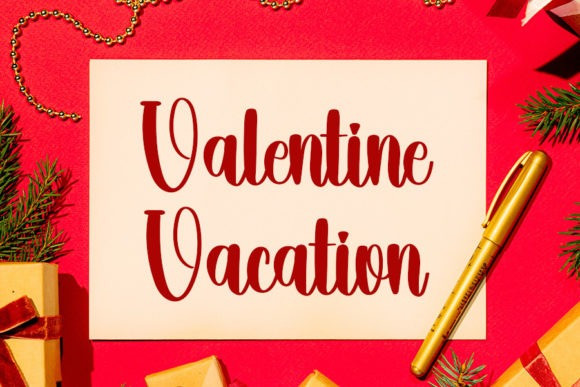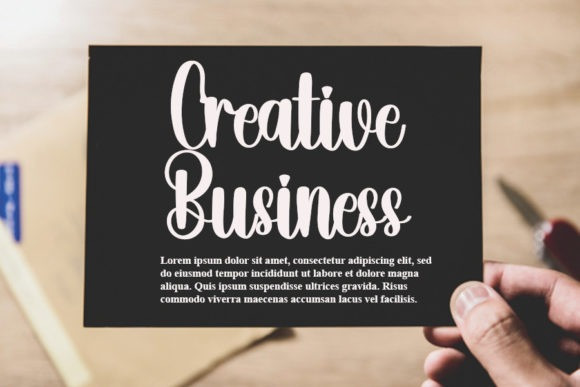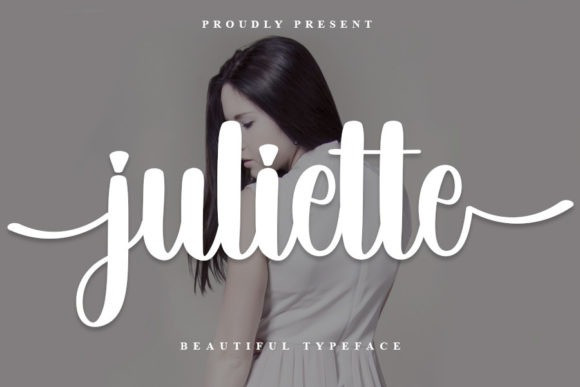
Juliette Script Font
Juliette Script Font is a gorgeous and bold handwritten font. It reads as confident and dynamic and can add tons of nostalgic character to your designs. This font is PUA encoded which means you can access all of the amazing glyphs and ligatures with ease!